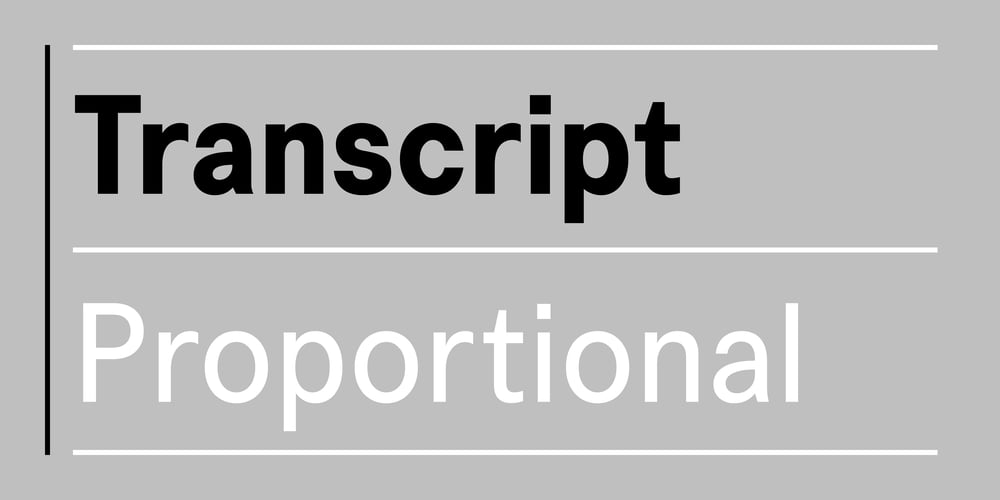
Transcript Font Family was designed by Colophon Foundry and published by Colophon Foundry. Transcript contains 10 styles and family package options. In the summer of 2010 Colophon Foundry was commissioned by Daniel Baer, of Studio Baer, to develop a typeface for fashion magazine Centrefold. The magazine’s editorial design and structure changes designer with each issue, so it was important to create a distinct typographic voice for the particular issue that Baer was designing and art directing.This singular weight typeface became the catalyst for Transcript, later extended into an extensive type family with both Proportional and Monospaced variants.Transcript is available in five weights – UltraLight, Light, Regular, Medium, Bold — with corresponding Italics. It is available to license in both Standard (‘STD’) and Professional (‘PRO’) variants, the latter containing Cyrillic and Greek scripts and copious OpenType features and stylistic alternates.